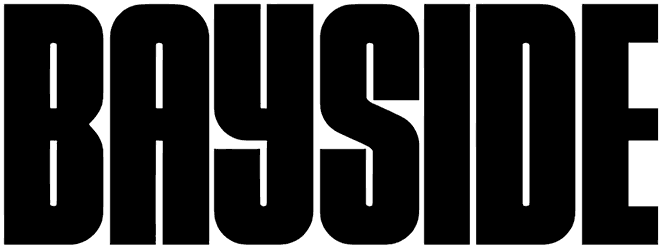
Bayside Font
Bayside is a clean, exquisite sans-serif font appropriate for any creative project. Despite the absence of lowercase letters, its three modern styles make it adaptable and distinct. Bayside is a great 80s font for brandi…
Bayside is a clean, exquisite sans-serif font appropriate for any creative project. Despite the absence of lowercase letters, its three modern styles make it adaptable and distinct.
Bayside is a great 80s font for branding, web design, and more. The best part is that it’s available for immediate download from RB, so you can get started using it right away in your own work. Don’t miss the chance to improve your designs with this basic sans-serif font.